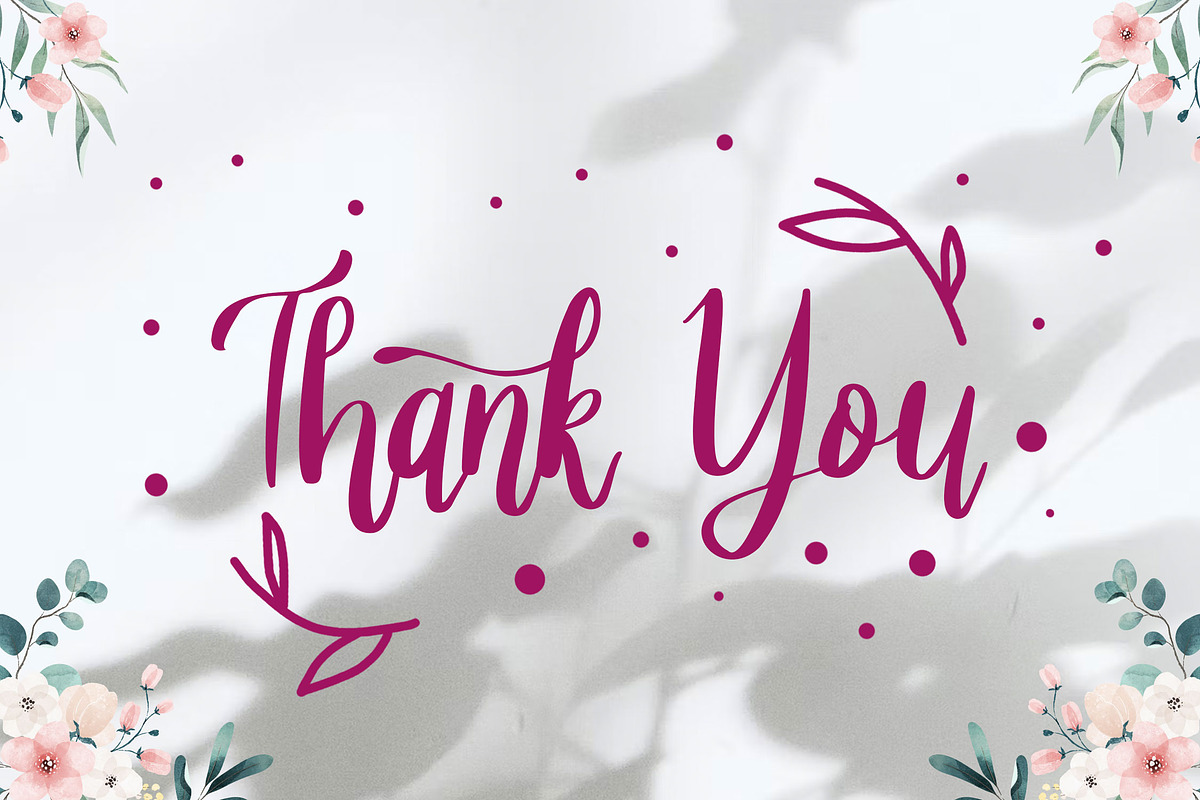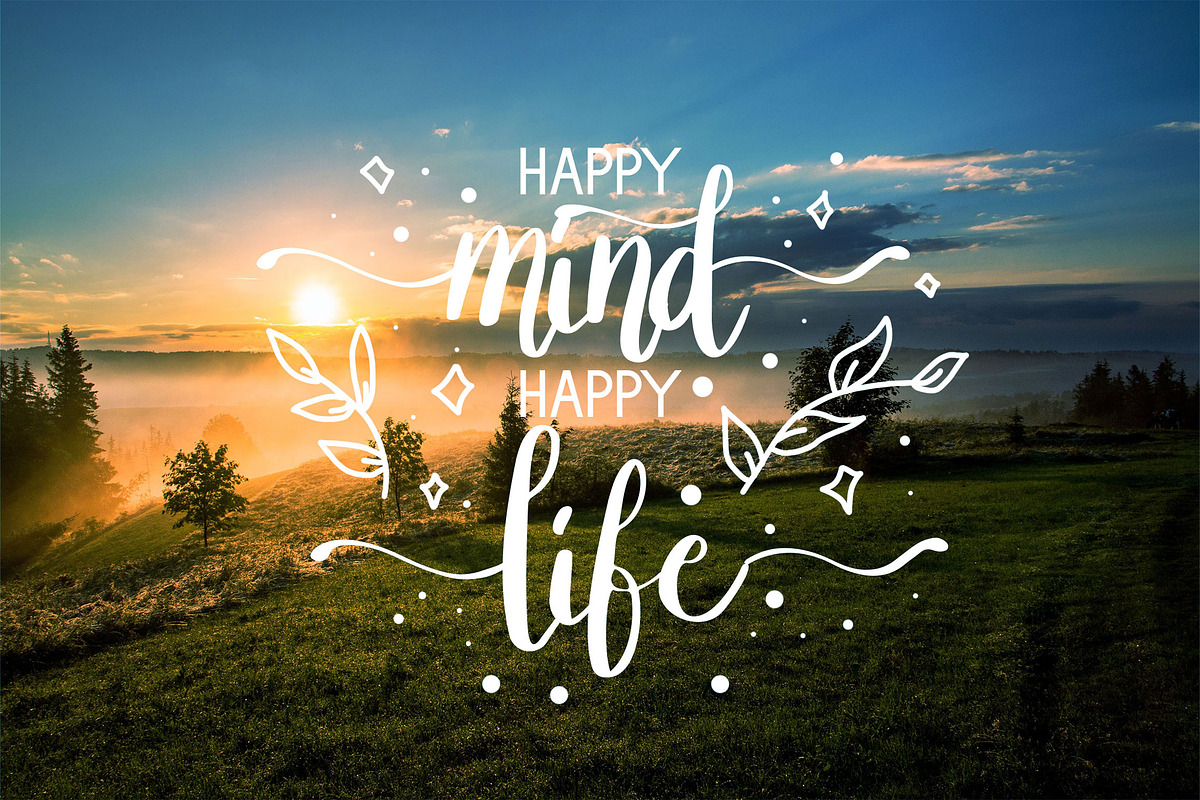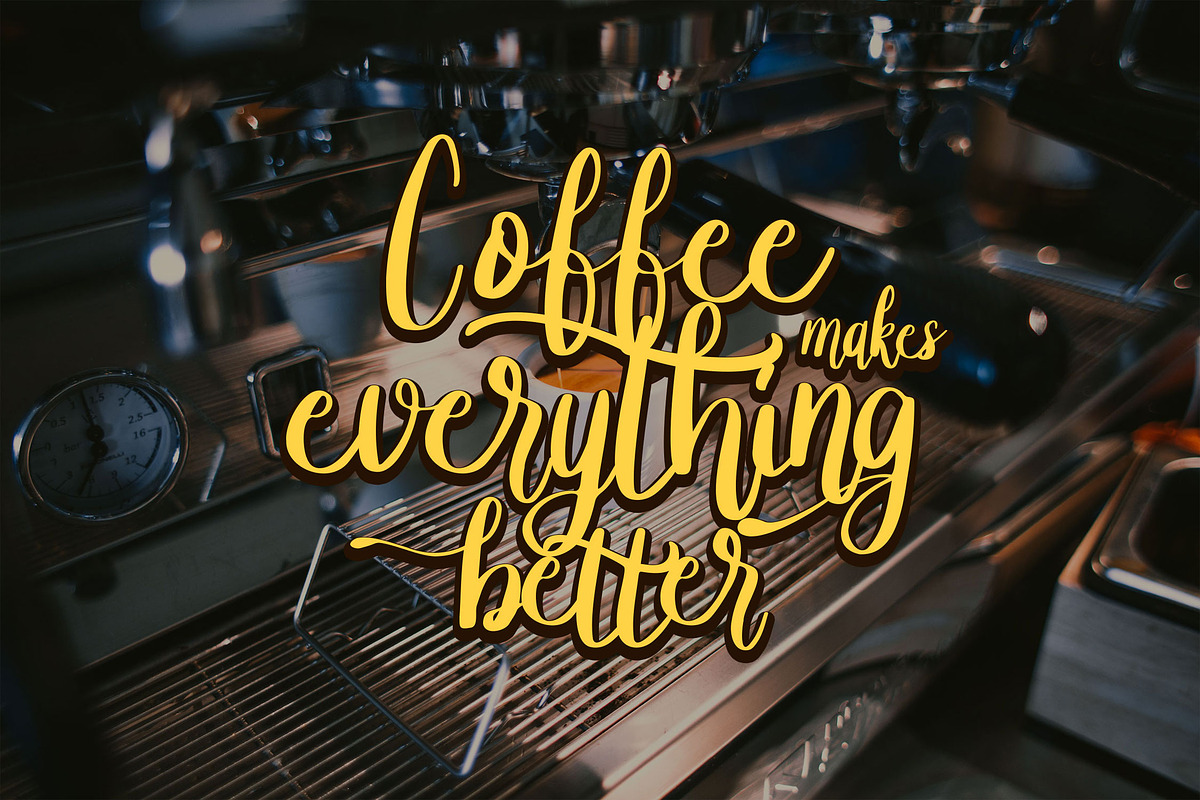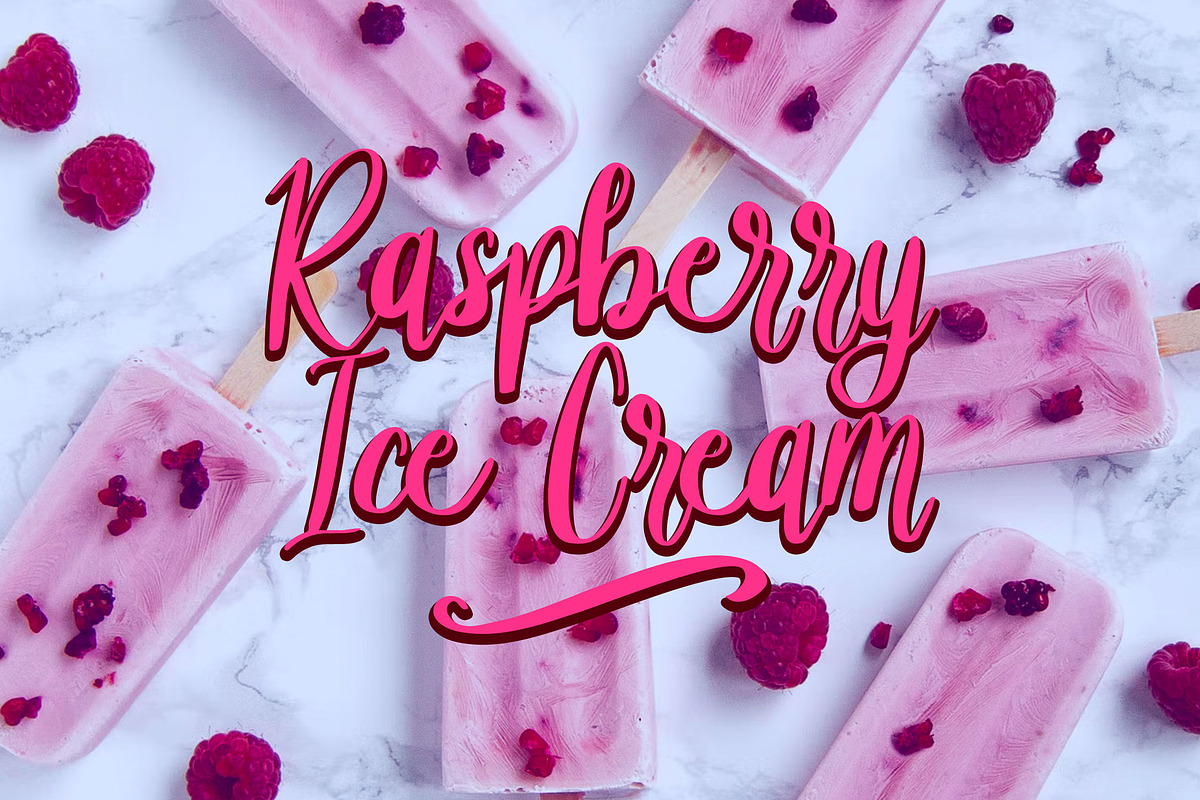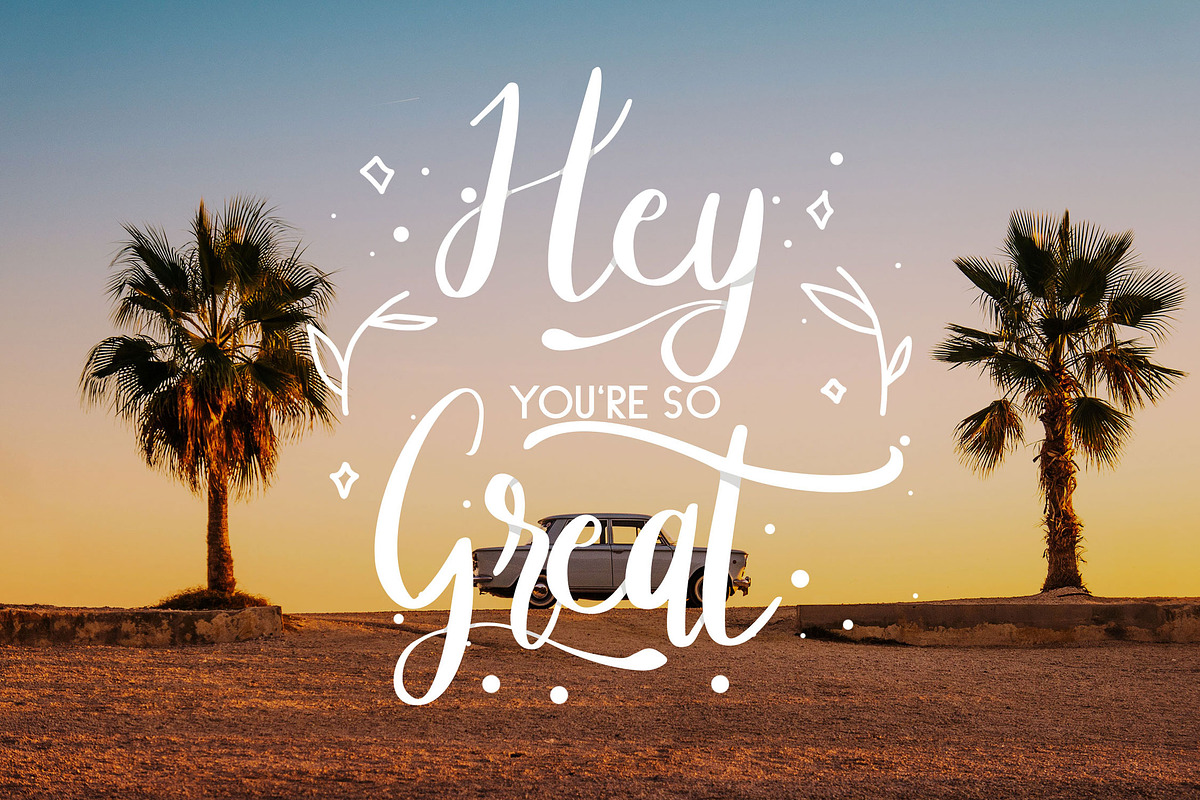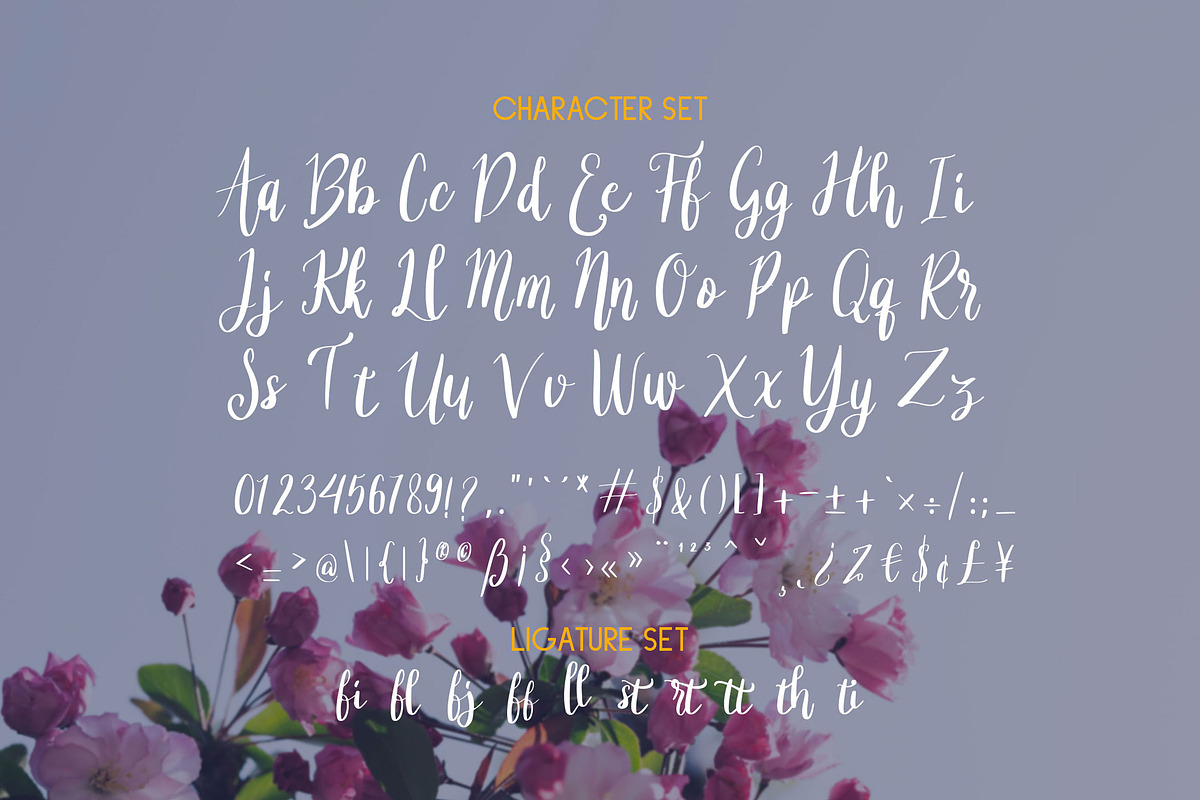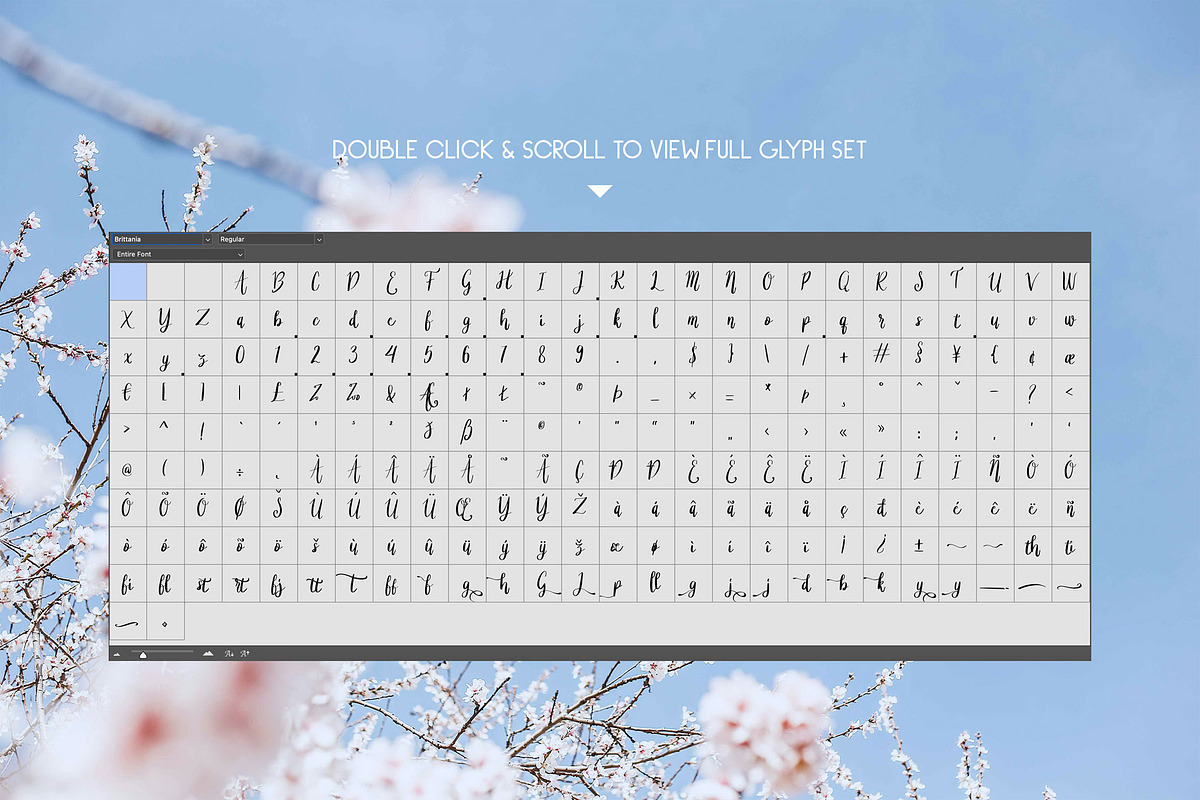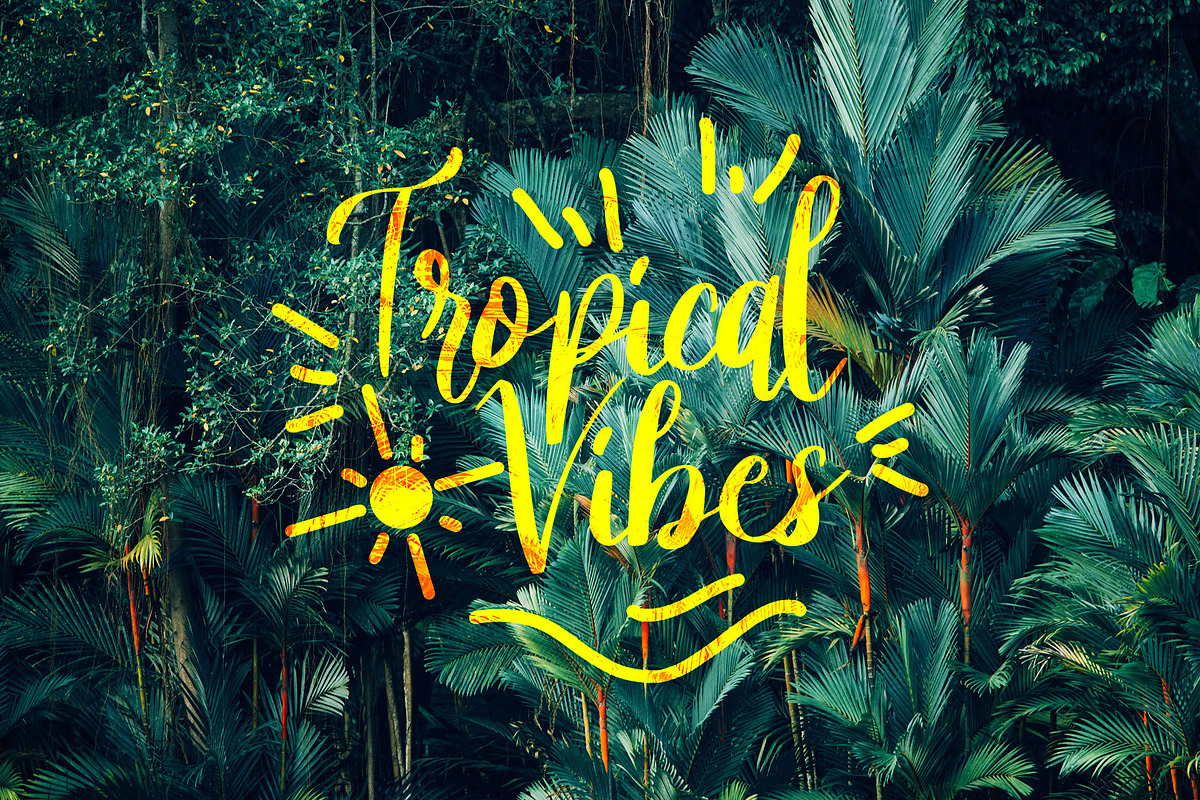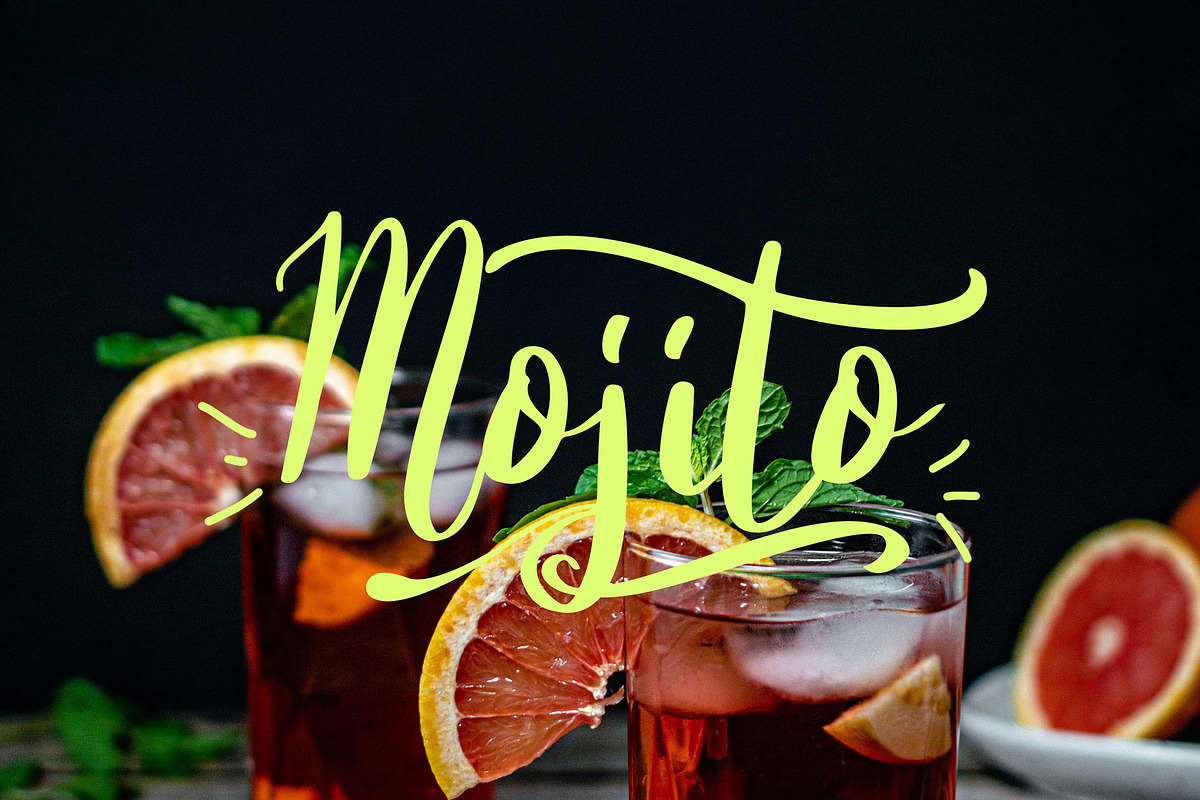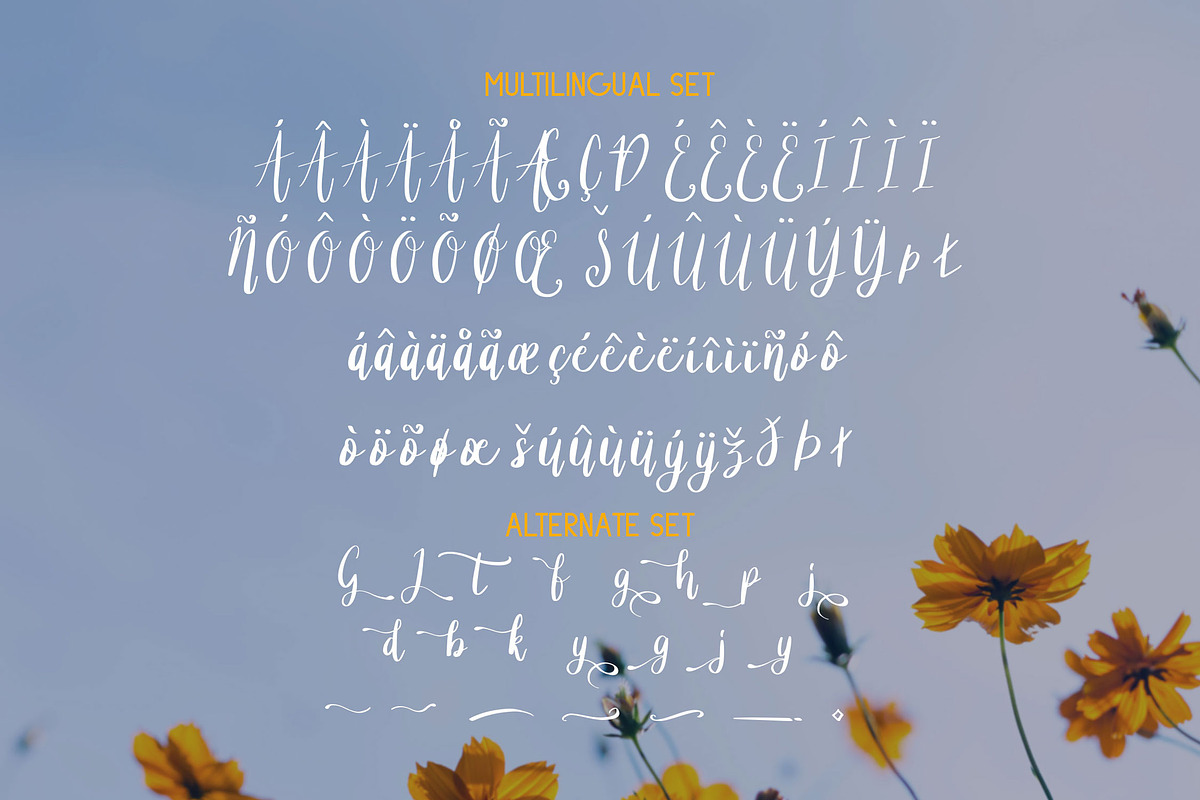
Asther – Stylish Handwritten Font
Introducing Asther, is a Stylish Handwritten Font has many purpose and suitable for signature logo, badges, logotype, fashion, luxury, invitation, wedding event, modern, classic modern, advertising and much more.
- Available Ligatures and Alternates
- Available Multi Language